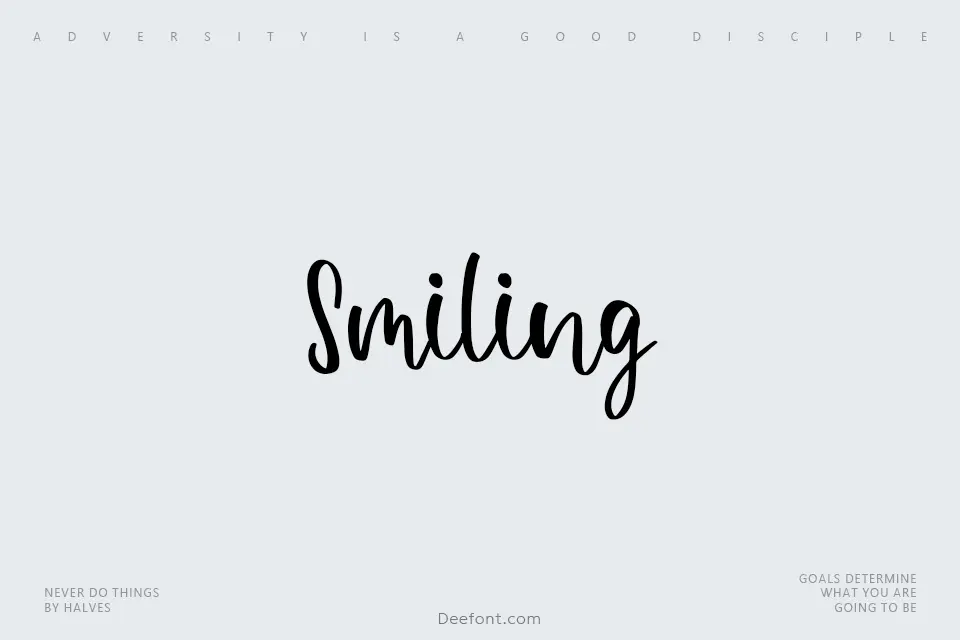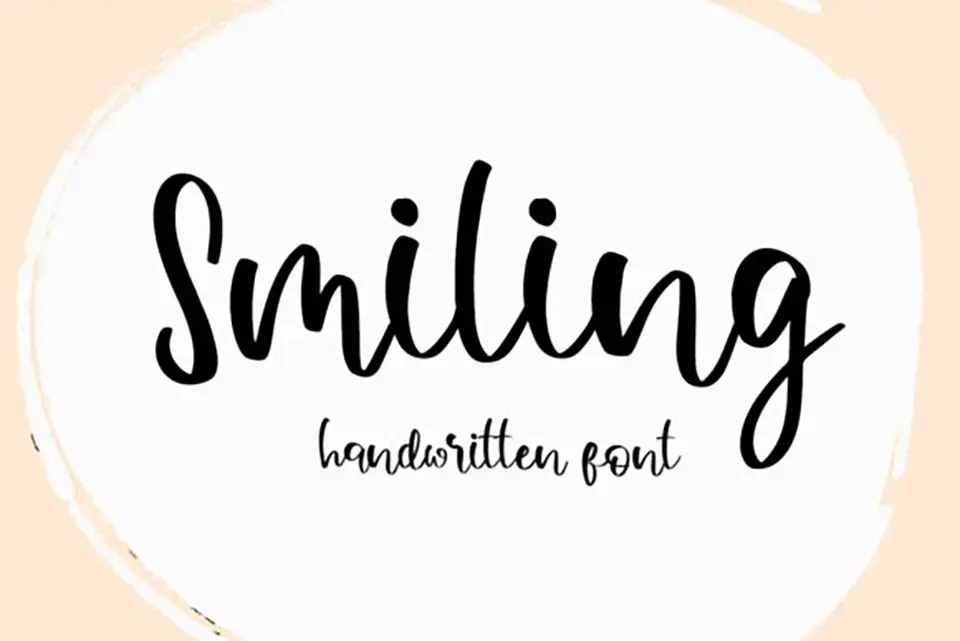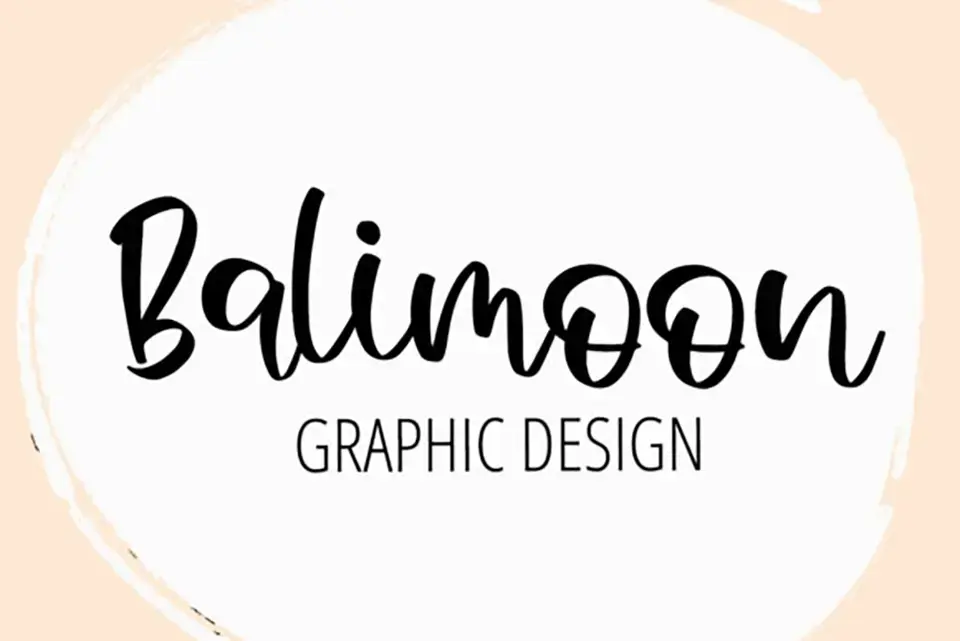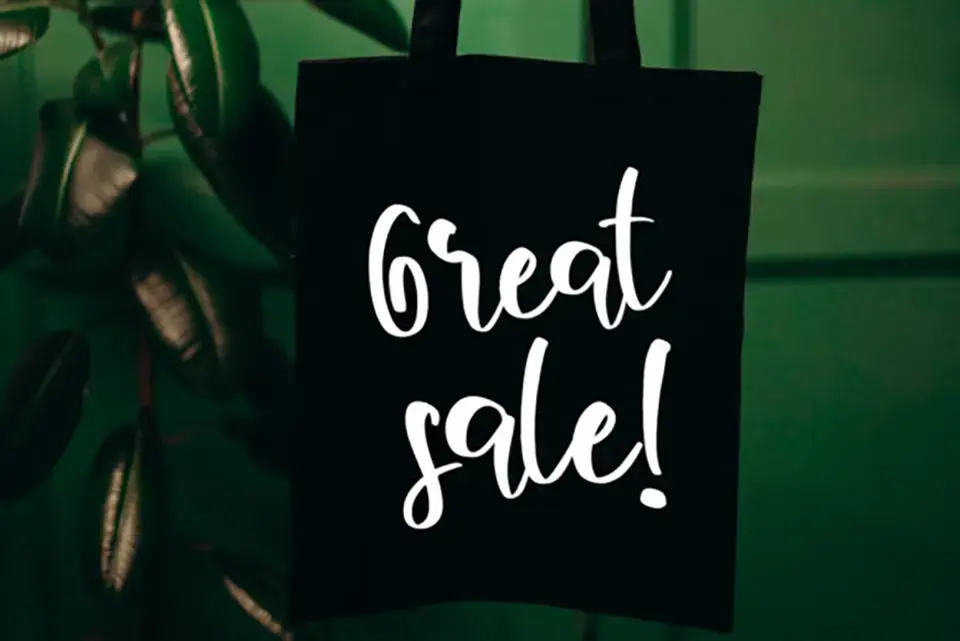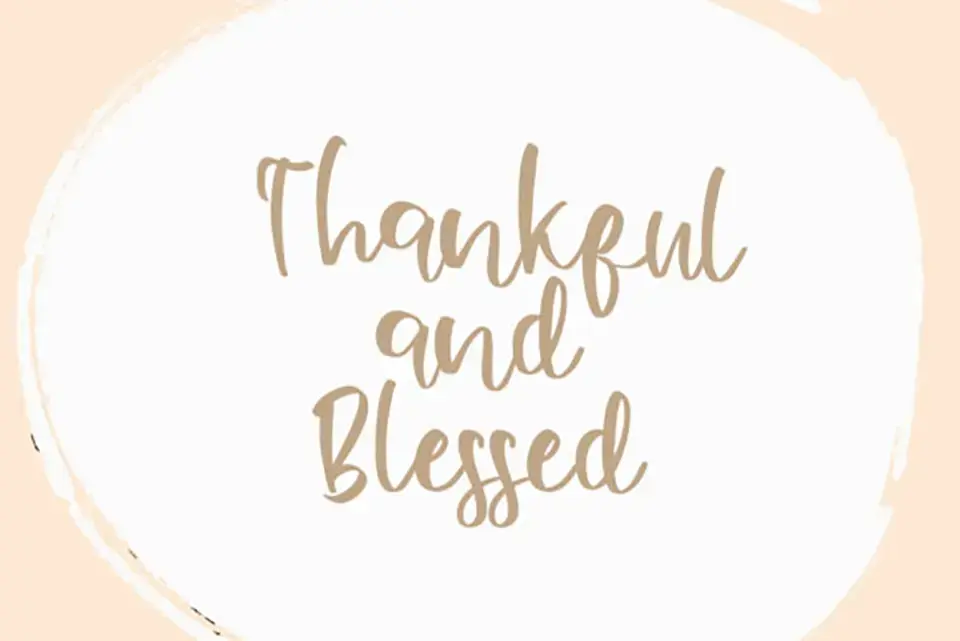
Smiling Font
Smiling is a delightful handwritten script typeface that captures the essence of casual, friendly penmanship with flowing curves and organic letterforms. This display font features smooth, natural strokes reminiscent of genuine hand-drawing, making it ideal for headlines, posters, greeting cards, social media content, and creative branding projects. The font’s inherent warmth and approachable character make it perfect for designs targeting audiences of all ages, from children’s publications to lifestyle brands. With 82 glyphs providing comprehensive character coverage, Smiling excels at bringing personality and authenticity to display applications where legibility at larger sizes is prioritized.